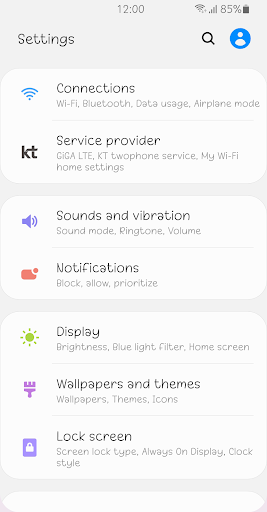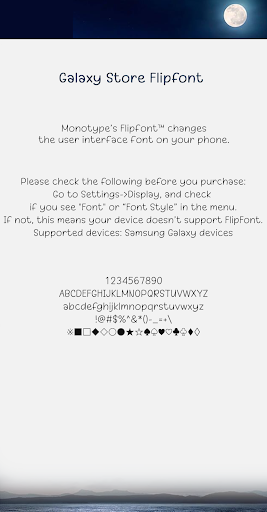
Fine Boleumdal
It is a cute handwriting style font with consistent thickness.
It expresses bright hope with a relaxed and natural feel.
The combination of a round shape resembling a full moon and soft curves creates a comfortable feeling.